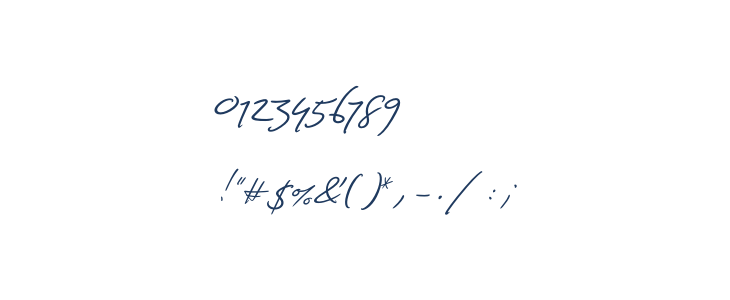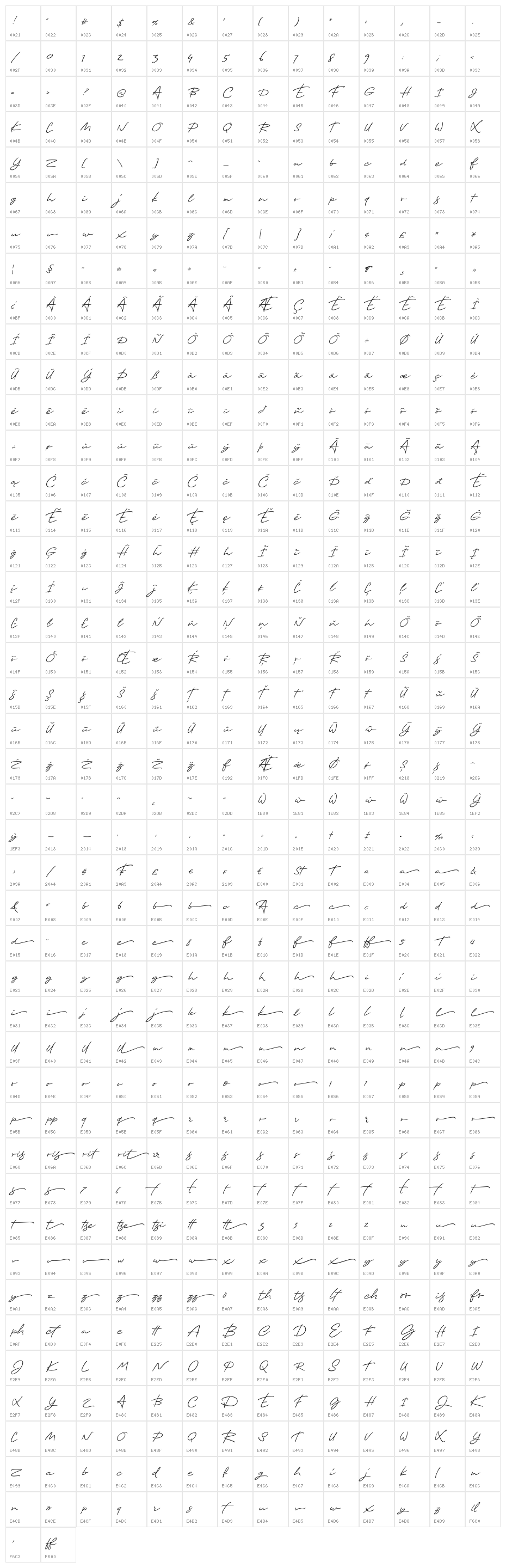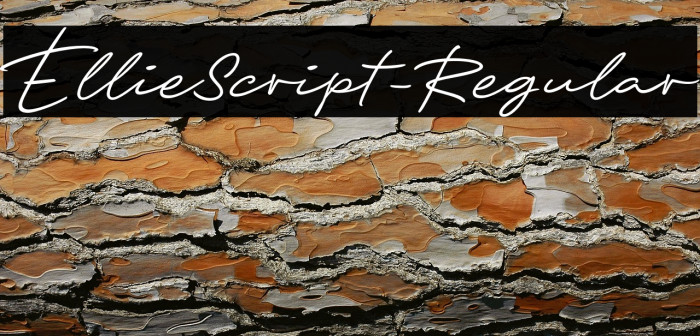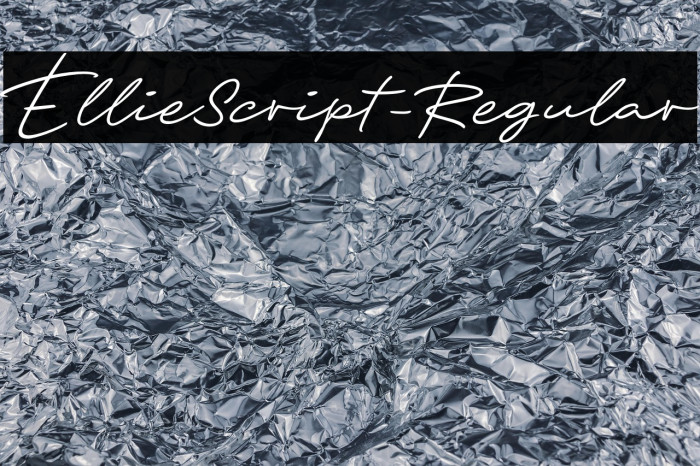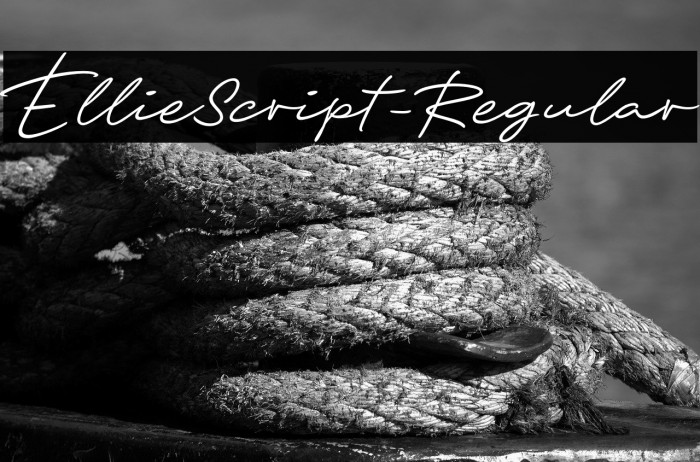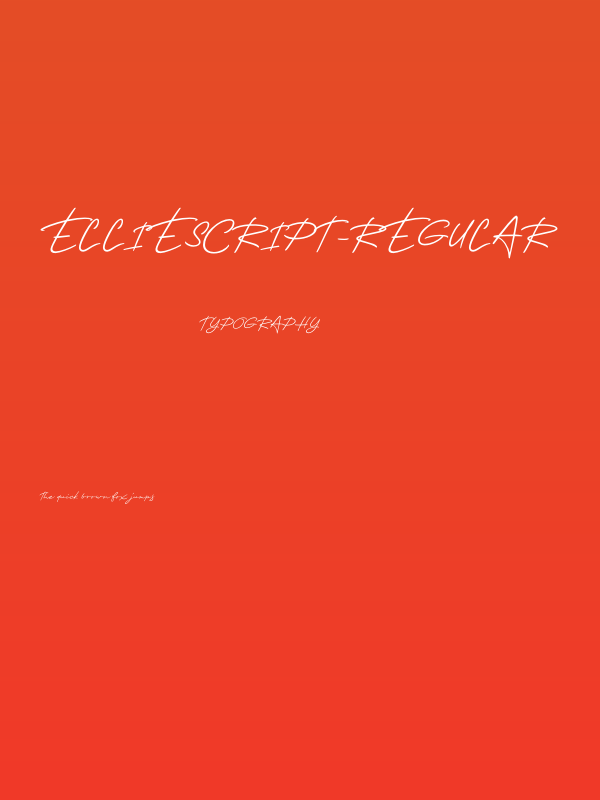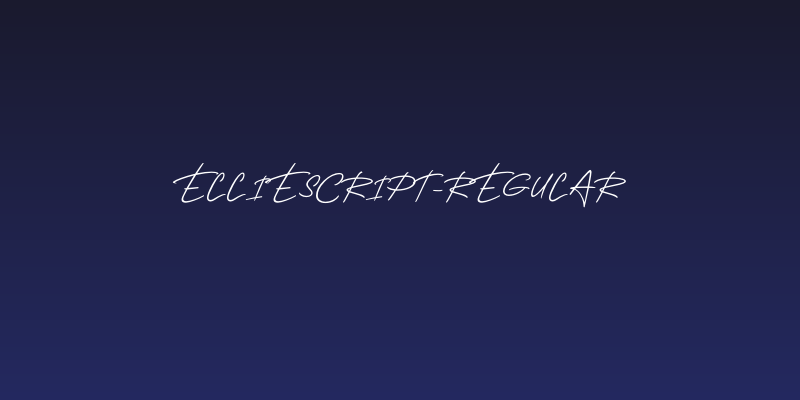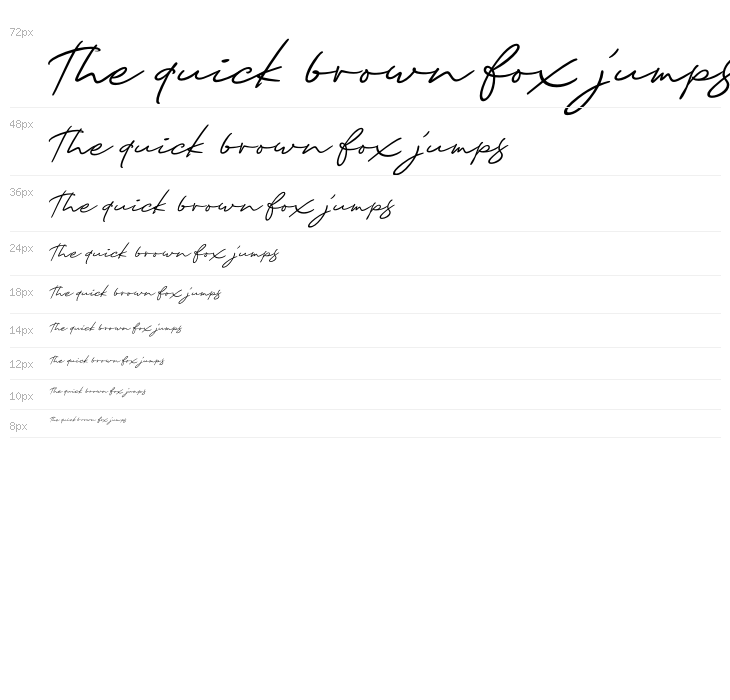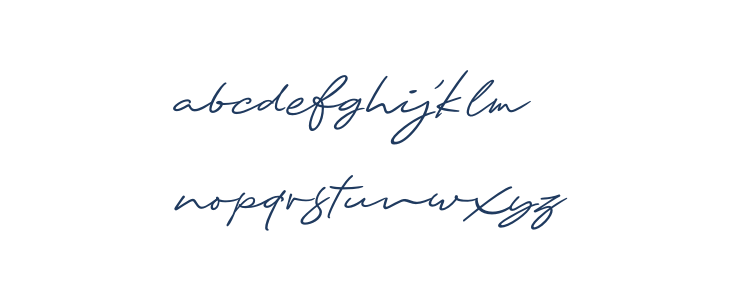
EllieScript-Regular Font
EllieScript-Regular Description
This font exudes a casual yet elegant handwritten style, characterized by fluid, connected strokes that mimic natural handwriting. The uppercase letters are slightly larger and more pronounced, while the lowercase letters maintain a consistent flow, enhancing readability. The numerals and special characters are crafted with the same attention to detail, ensuring uniformity across all glyphs. The overall appearance is both stylish and approachable, making it suitable for a variety of design applications. Its organic feel is complemented by a slight slant, adding a touch of sophistication without compromising legibility.
| Proposed Projects | Ideal for wedding invitations, personal branding, greeting cards, and social media graphics. |